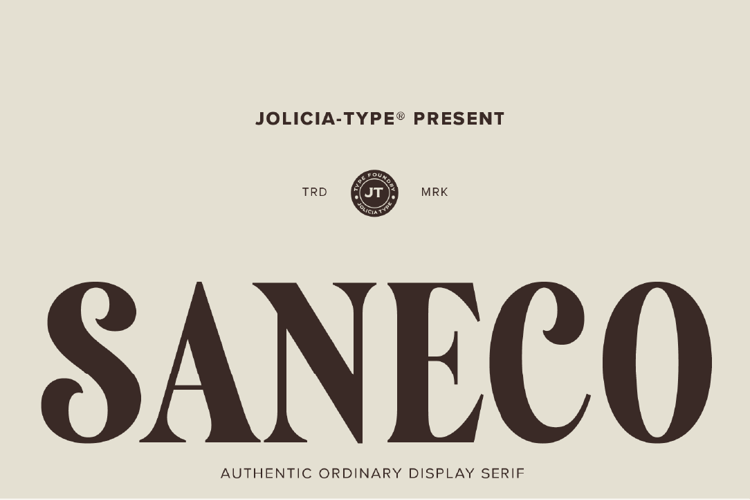
Saneco Font
Saneco is a modern display serif font that blends elegance,
luxury, and contemporary editorial style. Featuring refined
letterforms, graceful curves, and sophisticated details, this
typeface is perfect for branding, logos, fashion magazines,
cosmetic packaging, invitations, social media, and premium
design projects. Inspired by high-end editorial aesthetics, Saneco
delivers a timeless yet trendy look that adds confidence, style,
and professional appeal to every creative composition.